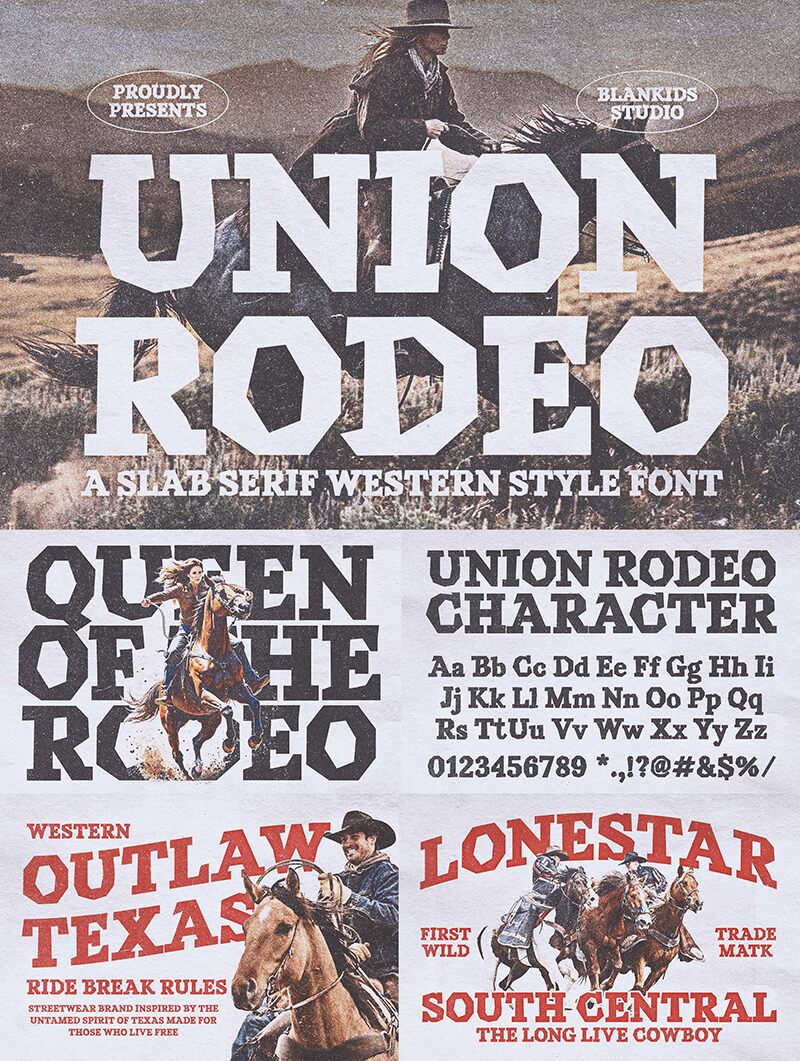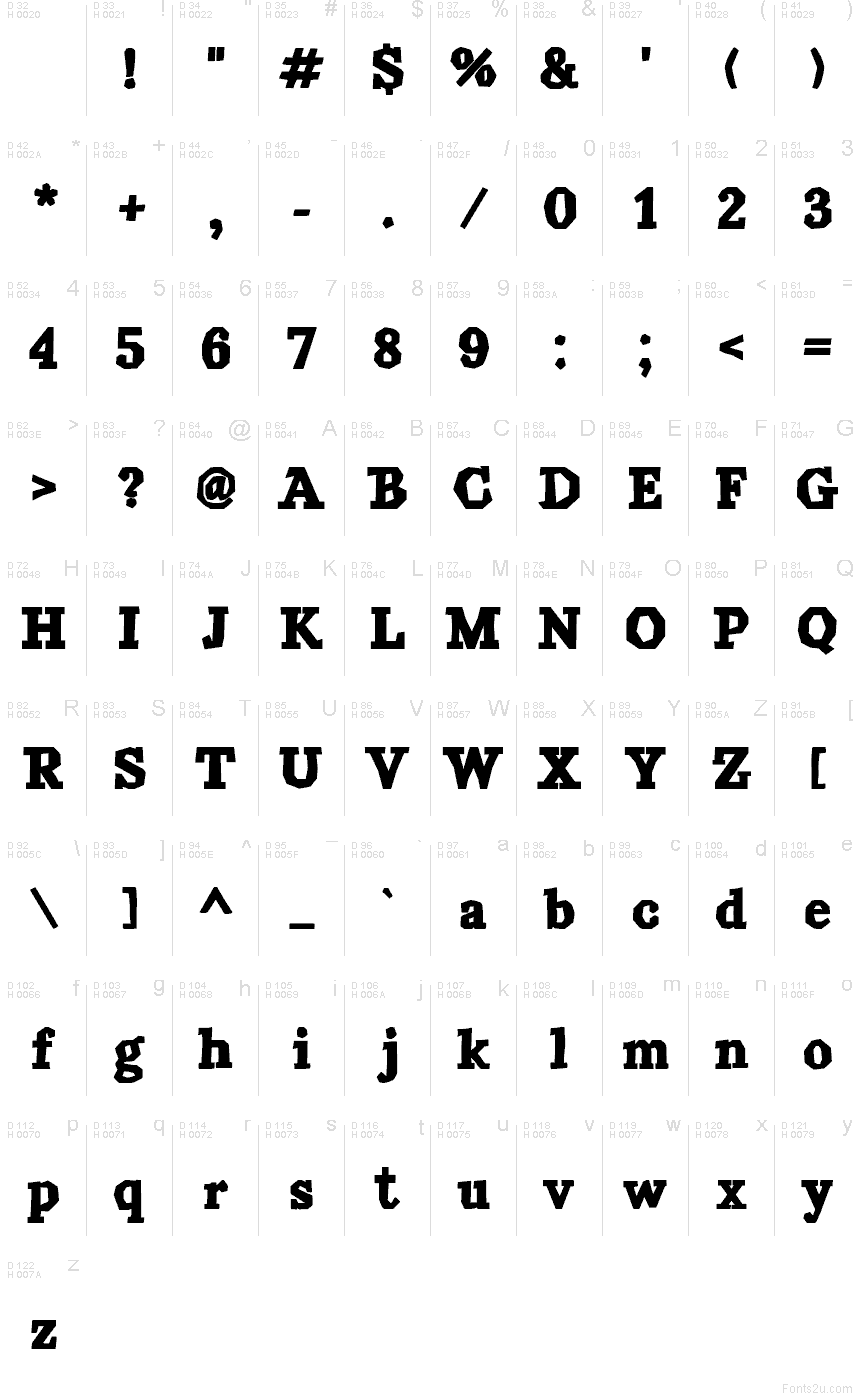
Union Rodeo Regular
Union Rodeo font by Blankids is a free western display typeface that hits that sweet spot between rugged and readable. Its chunky letterforms, squared edges, and slightly uneven contours feel like they’ve been stamped onto old wooden signs, giving your titles an instant frontier grit without slipping into parody. The spacing stays tight and sturdy, so big words lock together like a weathered cattle brand.
Using Union Rodeo, your posters, bar or saloon logos, country music covers, rodeo flyers, BBQ menus, and vintage product labels gain a bold, dusty character that’s hard to fake. This free font shines when set large and centered, letting its heavy curves and blocky silhouettes carry the mood. For a simple pairing, match Union Rodeo with a clean, neutral sans-serif for body text to keep the wild-west drama focused on your headlines.
Union Rodeo by Blankids Studio